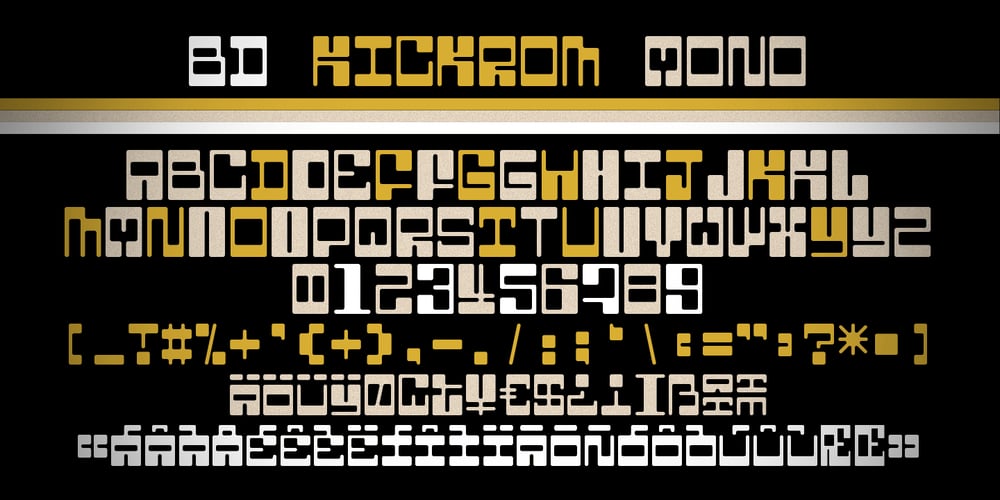
BD Kickrom Mono Font Family was designed by Lorenz (Lopetz) Gianfreda and published by Typedifferent. BD Kickrom Mono contains 1 styles and family package options. BD Kickrom Mono is a retro futuristic monospaced, uppercase font with the main characters set on the small keys and variants on the capital characters. It is great for the use as headlines in magazines, logotypes on posters, game titles, movies or music packaging.